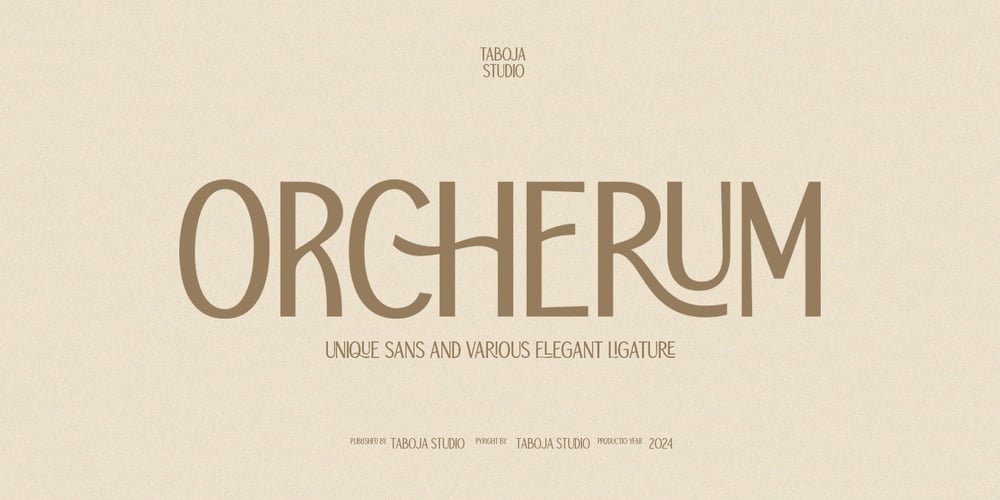
TBJ Orcherum Unique Ligatures
TBJ Orcherum Unique Ligatures font
TBJ Orcherum Unique Ligatures Font Family was designed by Arif Rijal, Yusilo Oktaprima Ardani and published by Taboja Studio. TBJ Orcherum Unique Ligatures contains 1 styles and family package options. Say hello to Orcherum Unique Sans Serif, a font that exudes elegance and sophistication with its captivating design and exquisite ligatures. Perfect for enhancing your design elements, this font offers a modern yet timeless aesthetic, making it an ideal choice for a variety of design projects.Crafted meticulously to ensure optimal quality in appearance and readability, each letter in Orcherum is a work of art in itself. Whether it’s logos, titles, book covers, web design, or posters, this versatile font provides endless creative possibilities, allowing you to create captivating and professional-looking designs effortlessly. Elevate your projects with the distinctive charm of Orcherum Unique Sans Serif font.—–TBJ Orcherum Includes: Regular Uppercase And Lowercase Alternates And Ligatures Numerals And Punctuation Accented characters Multilingual Support Unicode PUA Encoded —–We highly recommend using a program that supports OpenType features and Glyphs panels such as Adobe Illustrator, Adobe Photoshop CC, Adobe Indesign, or CorelDraw, so you can see and access all Glyph variations.While using this product, if you encounter any problem or spot something we may have missed, please don’t hesitate to drop us a message. We’d love to hear your feedbacks in order to further fine-tune our products.Stay creative and have a wonderful day.